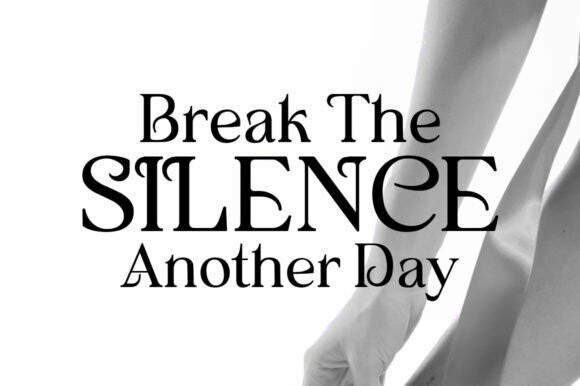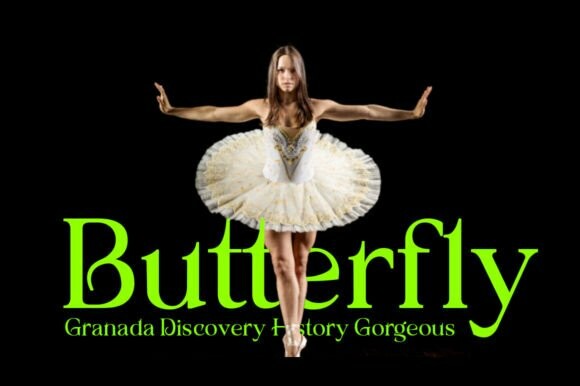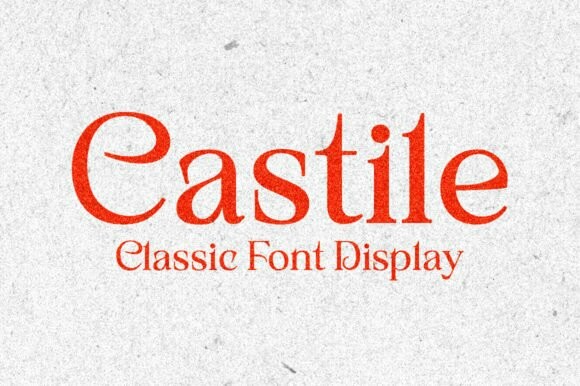
Castile Font
Castile Font is Retro with extreme cuts, sharp angles, and interactive straps. Affected characters are spread across three capital-only subfamilies, with distinct styles, and distinct personalities. The bold separation of characters and the considered standard of ligature create a type that is solid, modern, and attractive.